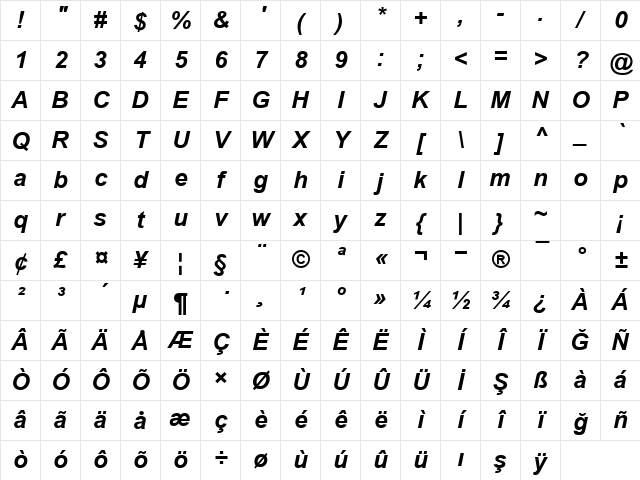
Arial Digiscream Bold Italic
Design Context for Arial Digiscream
Arial Digiscream is a composed and adaptable typeface that performs quietly and consistently across a wide range of design contexts. The slanted form adds forward momentum and visual energy. Its bold stroke weight gives it real presence on the page.
Pro Tip: Use Arial Digiscream for emphasis, pull quotes, and subheadings where its slanted energy can add rhythm to the layout.